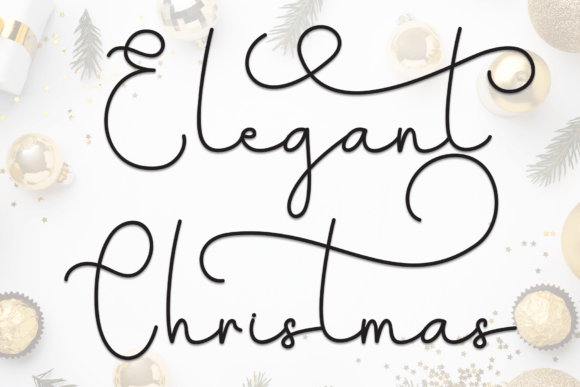
Elegant Christmas Font: Adding a Touch of Whimsy to Your Designs
As the holiday season approaches, designers and crafty enthusiasts are on the lookout for the perfect font to add a touch of magic to their Christmas-themed designs. If you’re searching for an elegant Christmas font that exudes warmth and approachability, look no further! In this article, we’ll introduce you to a charming handwritten display font that’s sure to breathe life into your wedding invitations, greeting cards, and any design craving a splash of whimsy.
Introducing the Perfect Elegant Christmas Font
This irresistibly charming handwritten display font is designed to capture the essence of sweet authenticity. With its playful and approachable allure, it’s the perfect choice for crafting messages that resonate with joy and friendliness. Whether you’re working on personal projects or professional designs, this font is sure to captivate your audience and leave a lasting impression.
So, what makes this font so special? For starters, its elegant and refined appearance makes it perfect for use in a variety of designs, from wedding invitations and greeting cards to event promotions and personal letters. Additionally, its whimsical touch adds a playful and carefree feel that’s sure to delight your audience.
Key Features of the Elegant Christmas Font
- Handwritten display font: This font boasts a beautiful, handwritten appearance that’s perfect for adding a personal touch to your designs.
- Warm and approachable allure: The font’s warm and inviting appearance makes it perfect for use in designs where you want to convey a sense of friendliness and approachability.
- Playful and whimsical: With its playful and whimsical touch, this font is sure to add a splash of fun and personality to your designs.
- Perfect for personal and professional designs: Whether you’re working on personal projects or professional designs, this font is versatile enough to meet your needs.
Design Uses for the Elegant Christmas Font
This elegant Christmas font is incredibly versatile and can be used in a variety of designs, including:
- Wedding invitations: Add a touch of elegance and sophistication to your wedding invitations with this beautiful font.
- Greeting cards: Whether you’re creating Christmas cards, birthday cards, or get-well cards, this font is sure to add a personal and thoughtful touch.
- Event promotions: Use this font to create eye-catching event promotions, including posters, flyers, and social media graphics.
- Personal letters: Add a touch of whimsy and personality to your personal letters with this elegant and playful font.
Tips for Using the Elegant Christmas Font
To get the most out of this elegant Christmas font, here are a few tips to keep in mind:
- Use it sparingly: While this font is beautiful and elegant, it’s best used sparingly to avoid overwhelming your design.
- Pair it with complementary fonts: Pair this font with complementary fonts to create visual interest and add depth to your design.
- Experiment with colors: Don’t be afraid to experiment with different colors and textures to add an extra layer of personality to your design.
In conclusion, this elegant Christmas font is a versatile and beautiful addition to any design. With its warm and approachable allure, playful and whimsical touch, and elegant appearance, it’s the perfect choice for adding a touch of magic to your Christmas-themed designs. Whether you’re working on personal projects or professional designs, this font is sure to captivate your audience and leave a lasting impression.